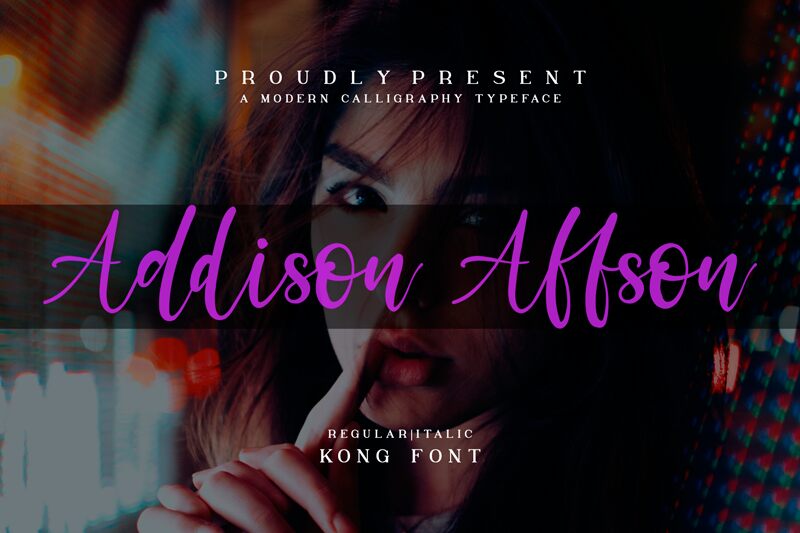
Addison Affson font family by Kong Font features 4 flowing font styles with an artistic and expressive take on handwritten typography. This design can be incorporated in contemporary use and even modernistic trends, as the inspiration behind Addison Affson is modern and elegant handwriting. Letters connect in a smooth, sophisticated manner giving this font family an extremely artistic persona.
Invitation cards, greeting cards, brochures, business cards, and resumes are some of the print options that would benefit from Addison Affson. Designers can also make use of this font family in branding elements like logo design, packaging design, label design, advertising campaigns, and web design.